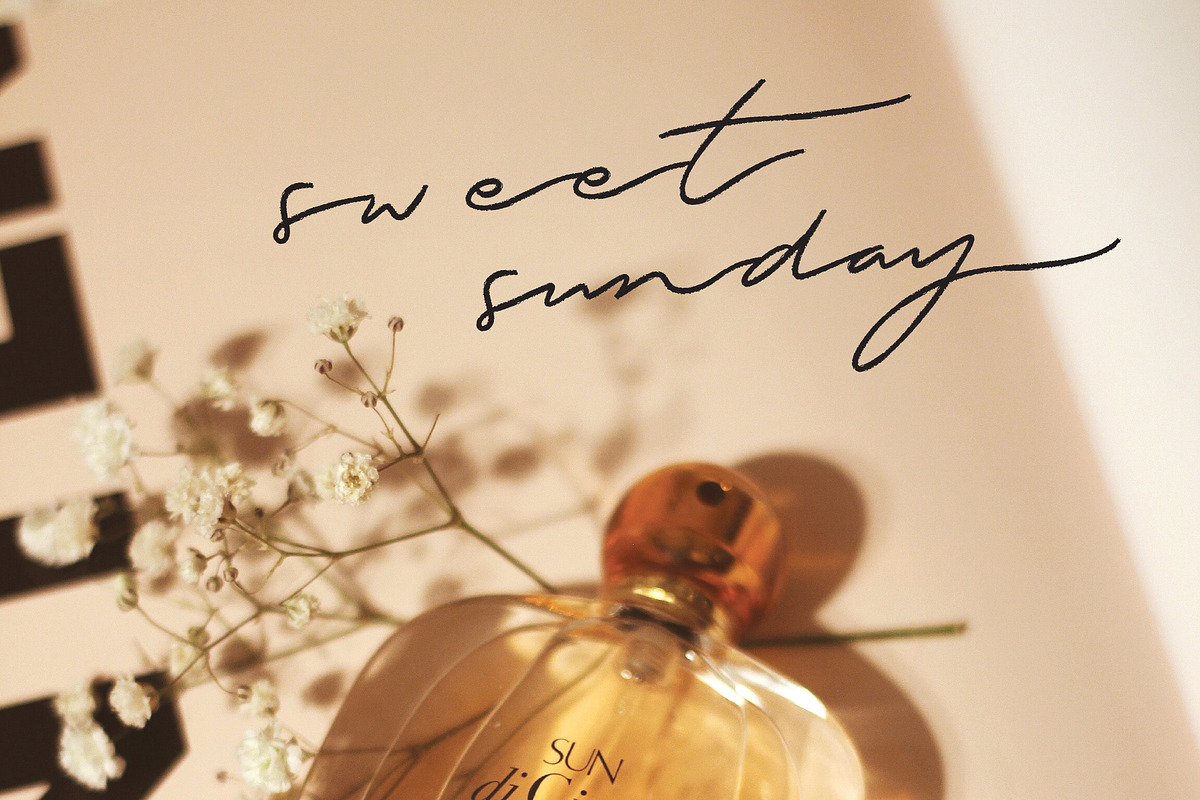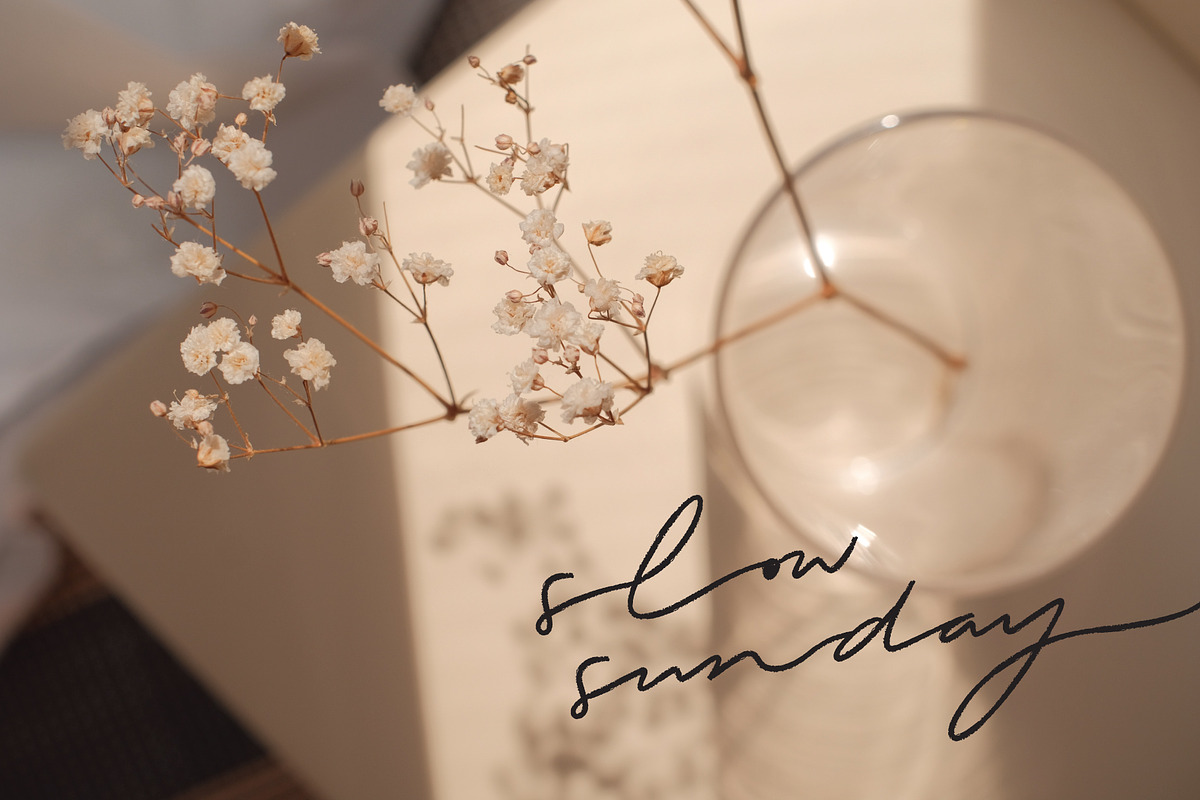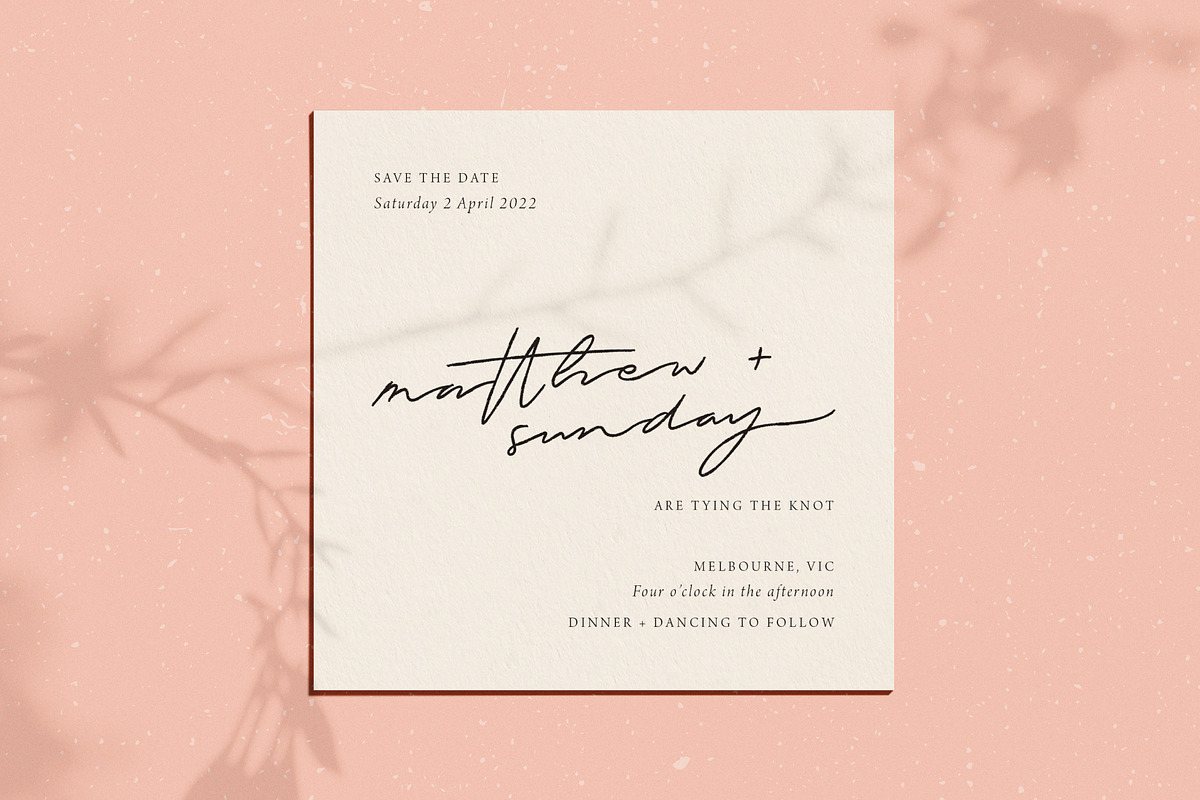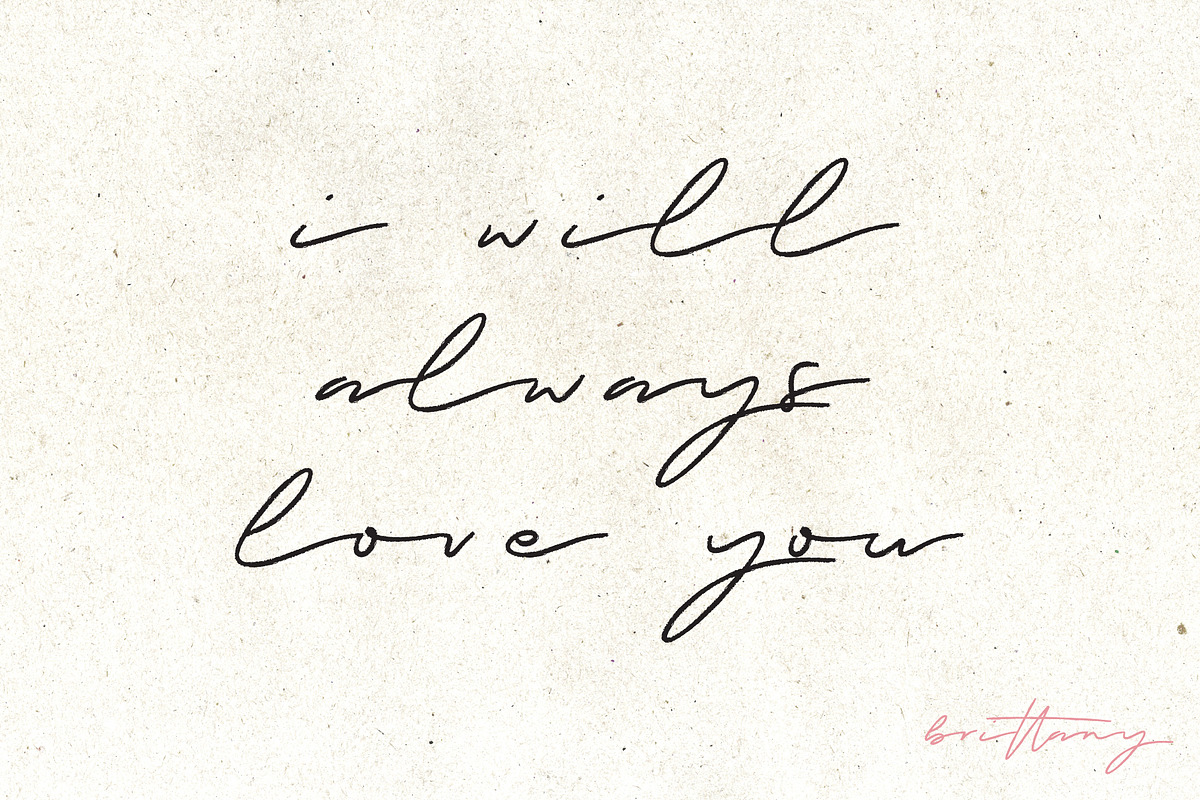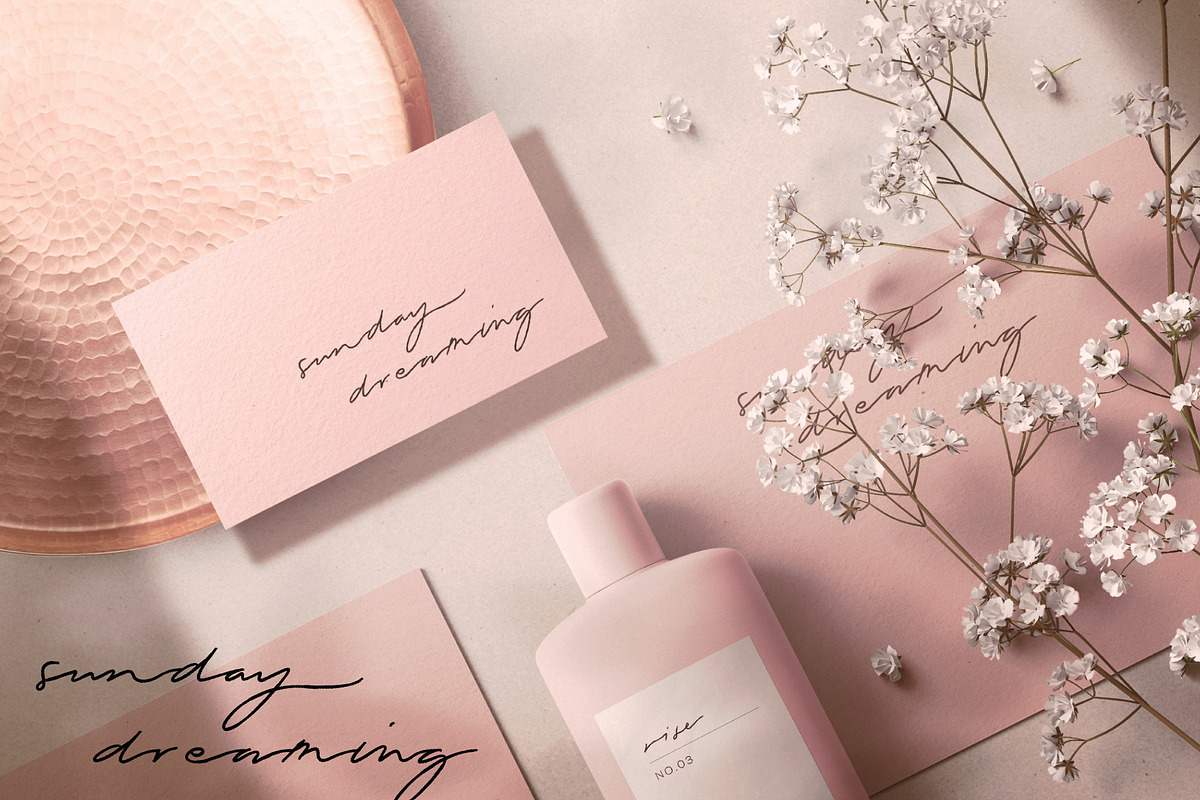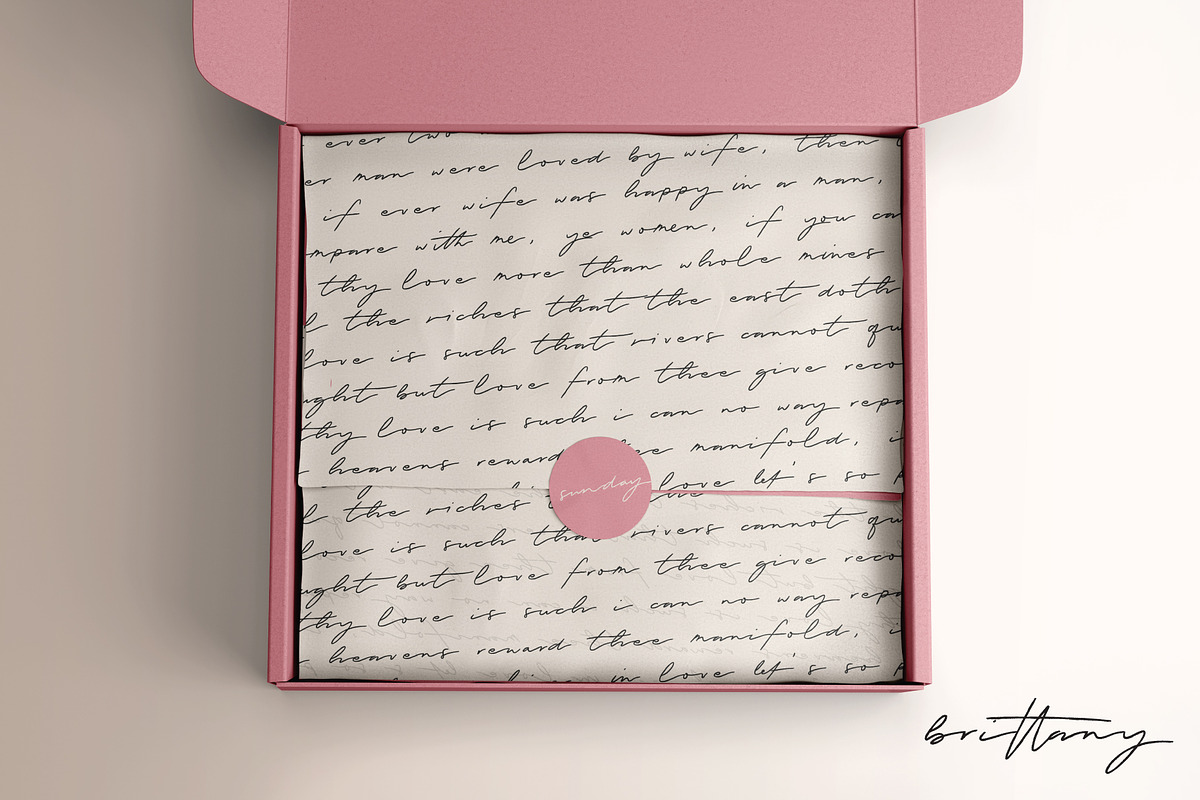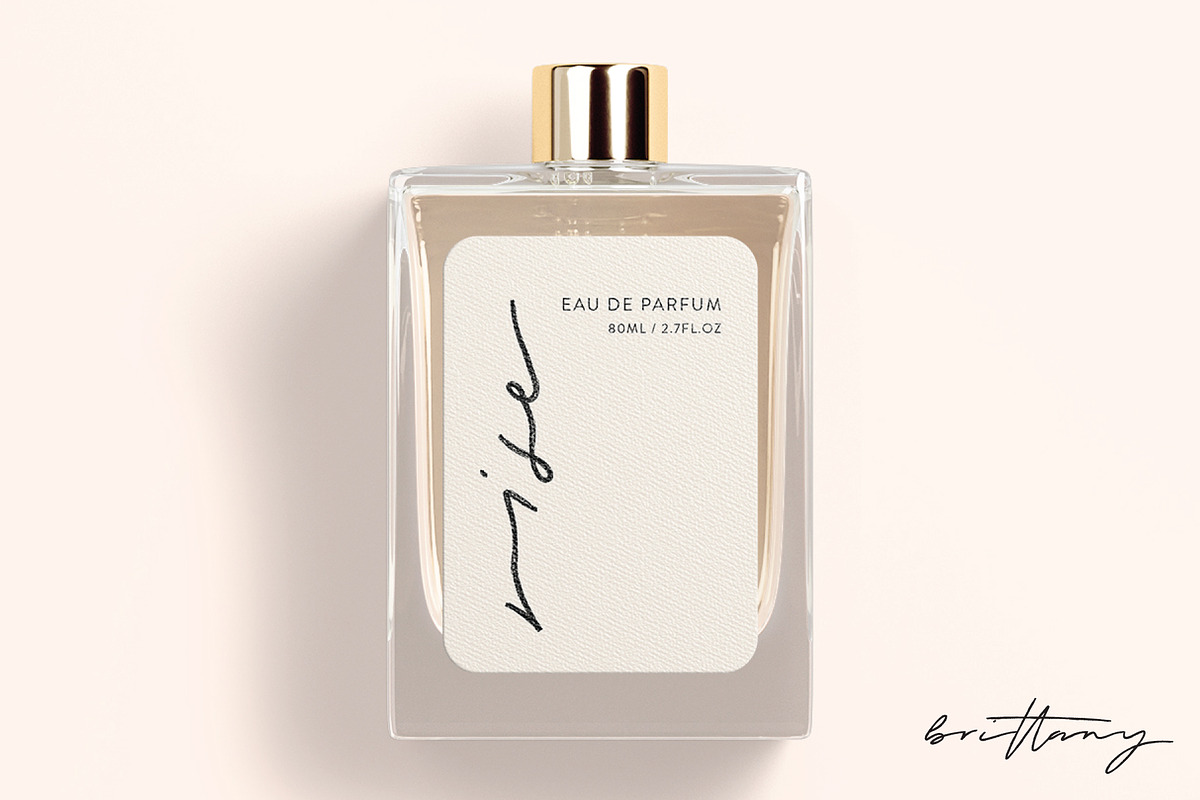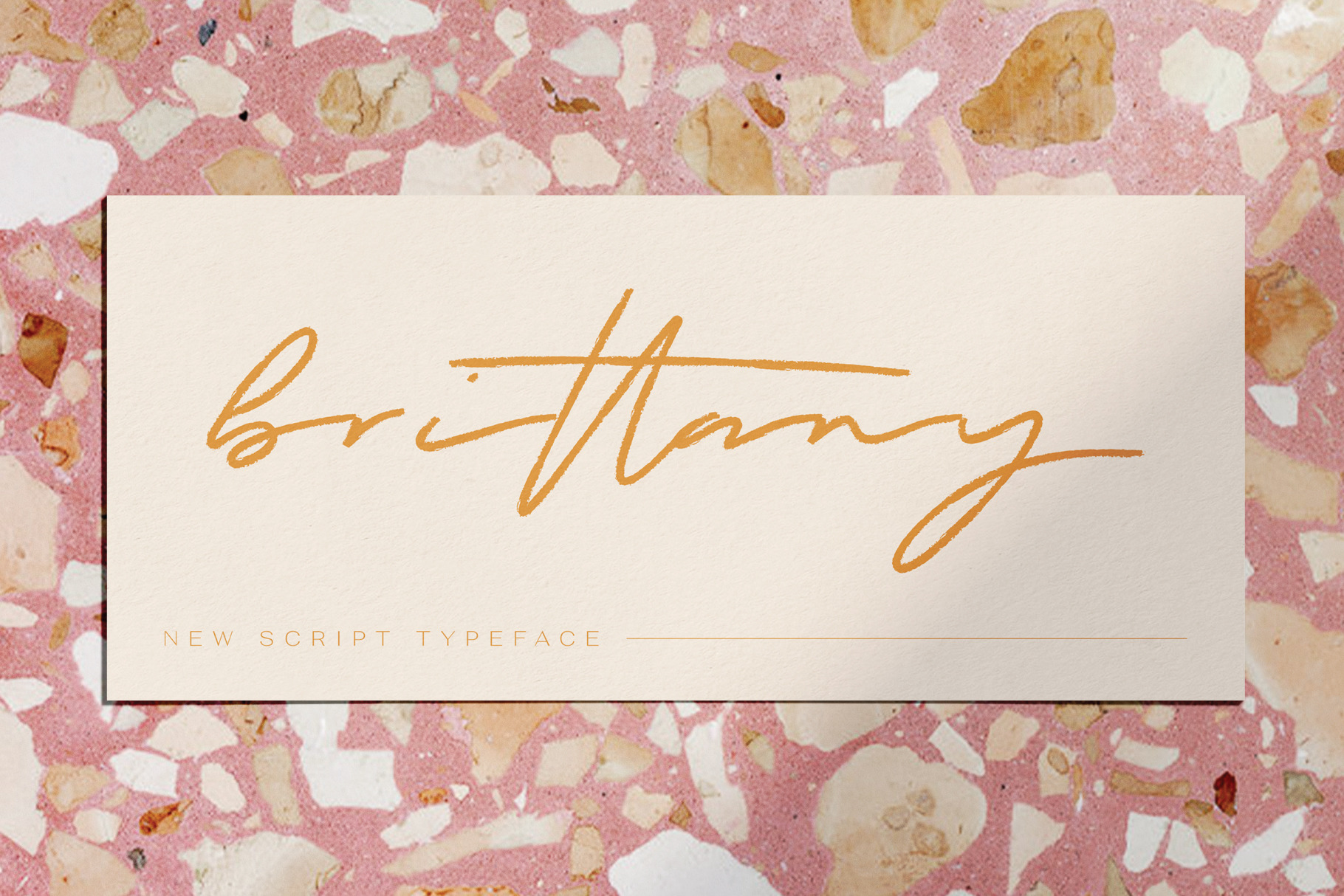
Brittany | Brush Display Font
Introducing Brittany, a romantic handwritten brush display font with lots of personality. Brittany is a ligature based script designed to be the perfect font for romantic logos, wedding stationery, social media & packaging. Including a large selection of Opentype double-letter and triple-letter ligatures to give the script a realistic hand-lettered feel.
Brittany contains multilingual support with accented characters for international (Western European, Central European and South Eastern European) users.